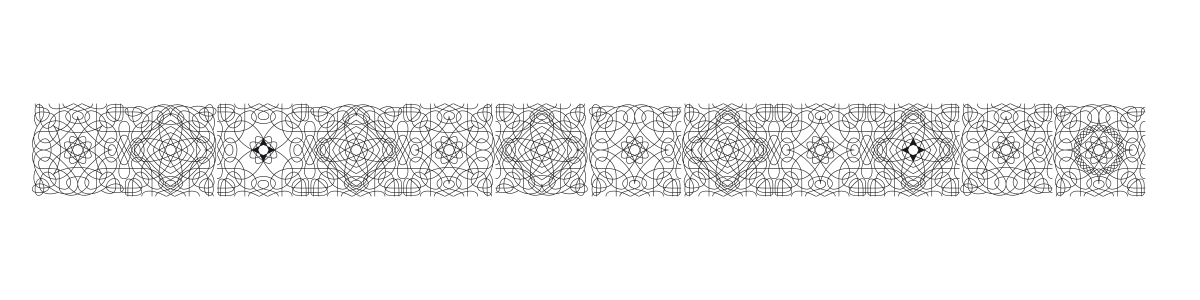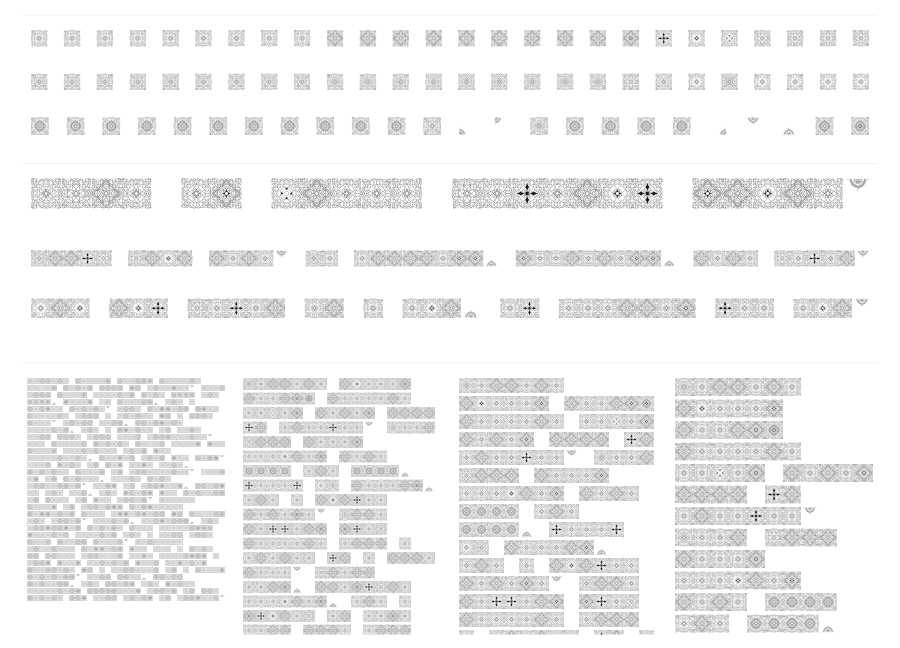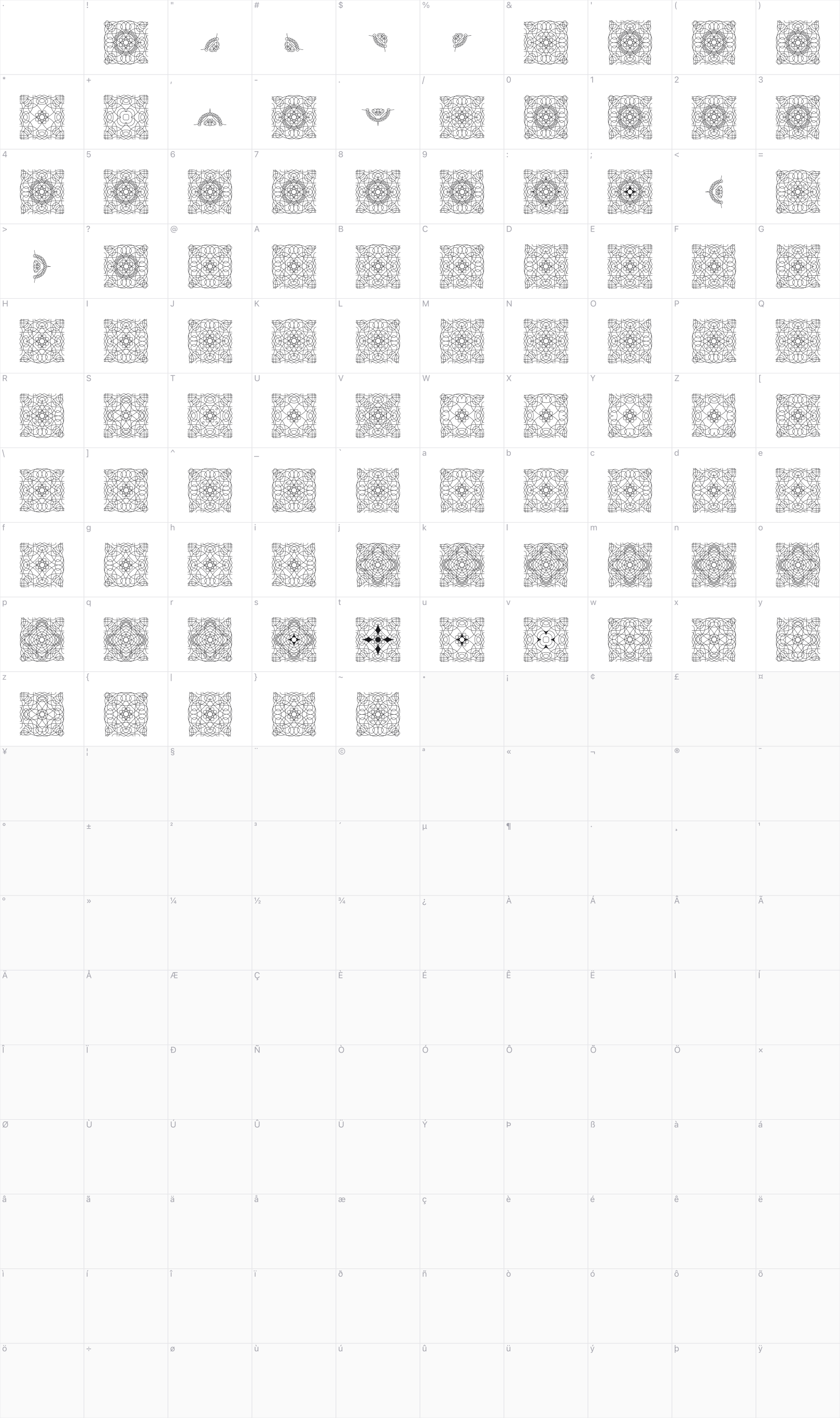
GlukFramesG1
GlukFramesG1 is a modular ornament font built from interlocking frame and border elements that snap together into continuous decorative bands. Type a sequence of characters and watch them assemble into dense, lace-like patterns with floral medallions and geometric lattice work. It is an experimental set that depends on careful software settings for line spacing and text alignment to work correctly.